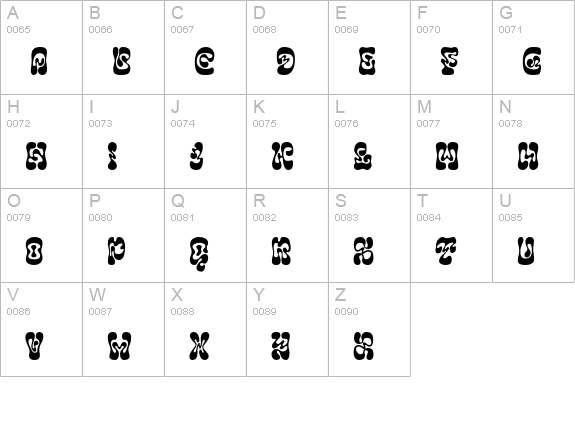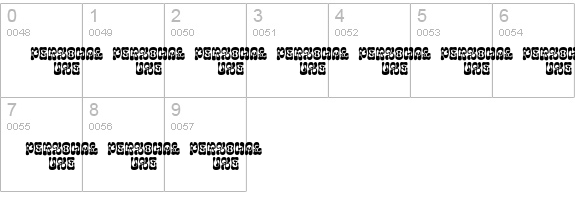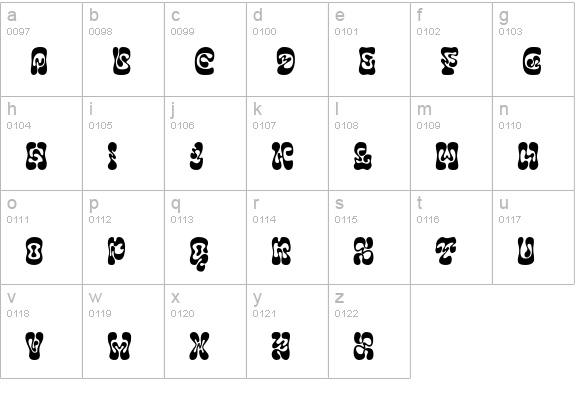
Smile Power Font Details
Smile Power is a free for personal use font in the Fancy > Distorted category, designed by Ef Studio. It has been downloaded 18 times and is available for Windows, Mac and Linux.
Say hello to Smile Power! You can use this font for psychedelic theme design or any purpose you want. Smile Power will fit on headline, logotype, tittle, poster, and so on. It will be nice to mix and match with simple sans serif. You also will get psychedelic graphics inside the file as alternates. The combination of psychedelic letter and psychedelic icon will make your design on point!